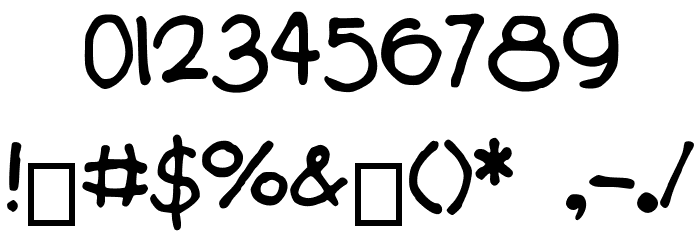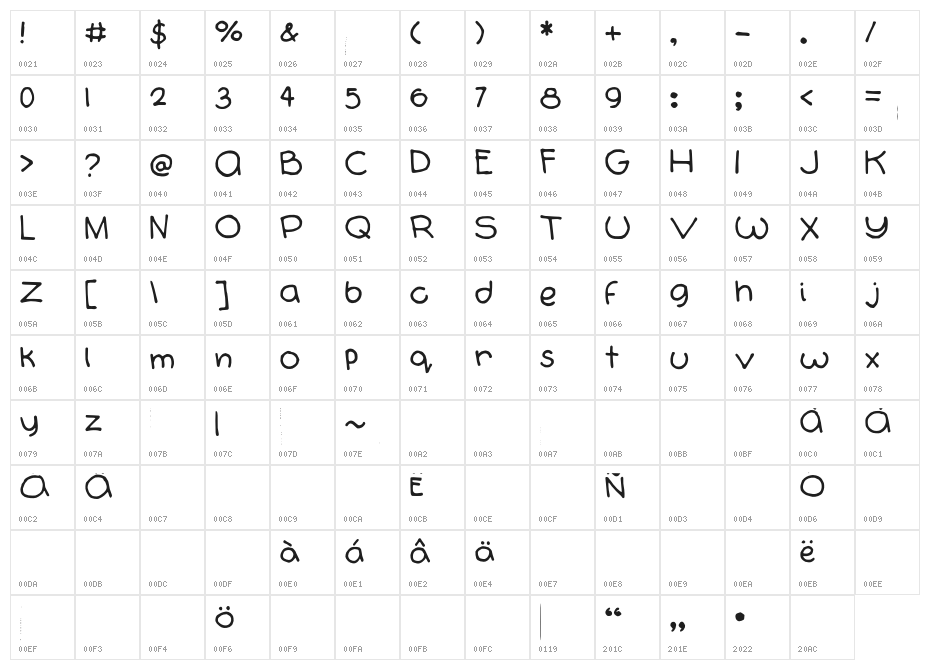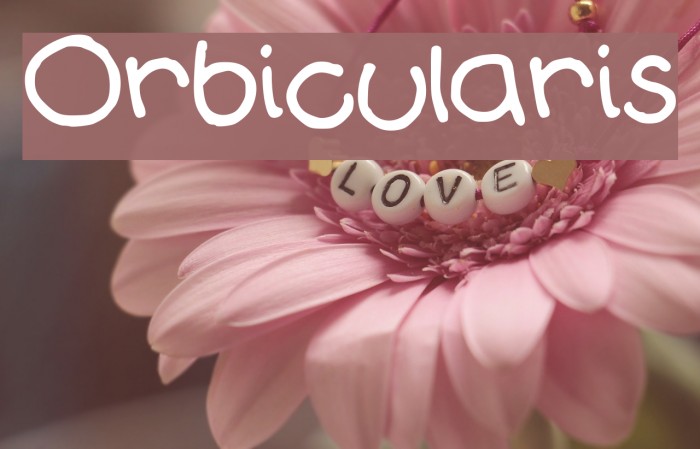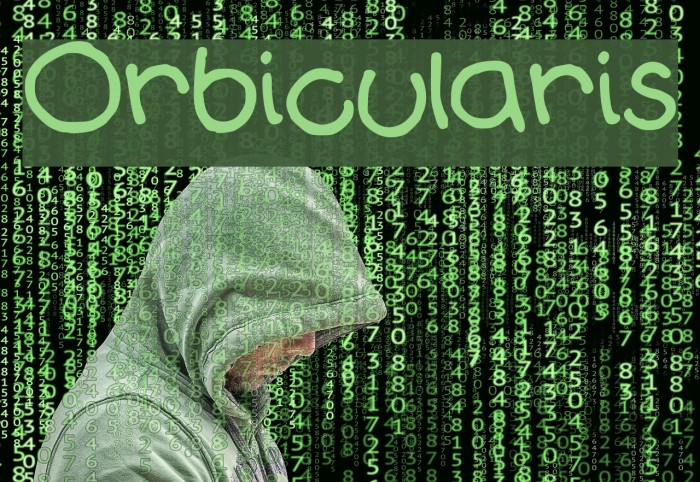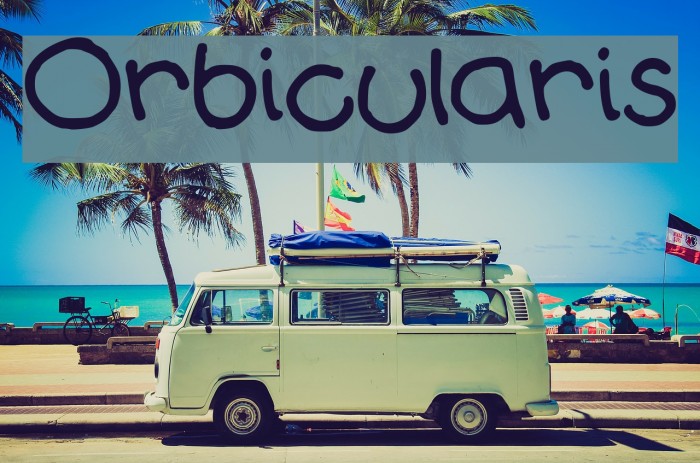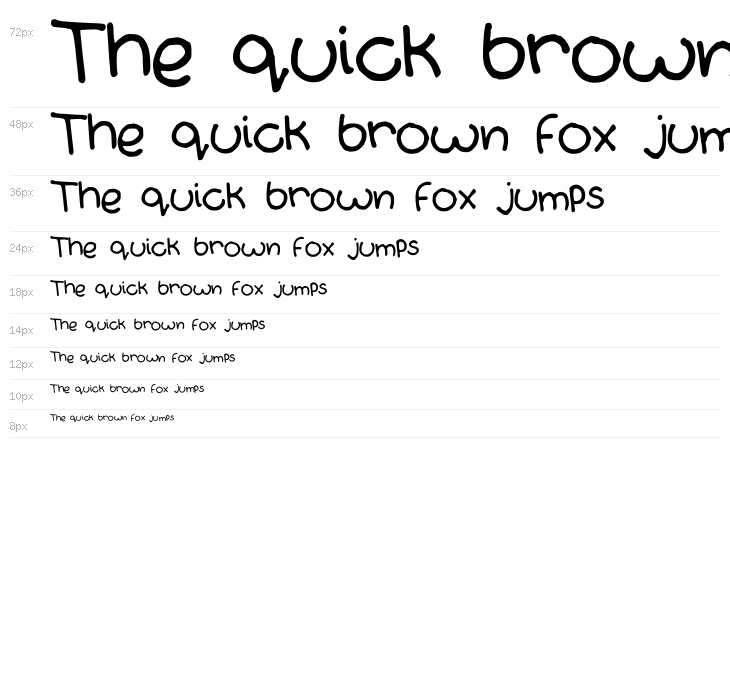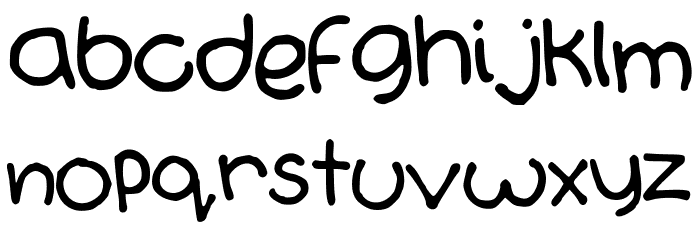
Orbicularis Font
Orbicularis Description
This playful and rounded font features a hand-drawn aesthetic, characterized by its smooth curves and informal style. The letters are evenly spaced with a consistent stroke width, giving it a friendly and approachable appearance. The uppercase and lowercase letters maintain a uniform height, while the numerals and special characters blend seamlessly with the overall design. Its whimsical nature makes it suitable for creative and casual projects, offering a sense of warmth and personality.
Overall StyleCasual
Use CaseHeadlines, Logos, Informal text
Proposed ProjectsIdeal for children's books, greeting cards, playful branding, and casual invitations.